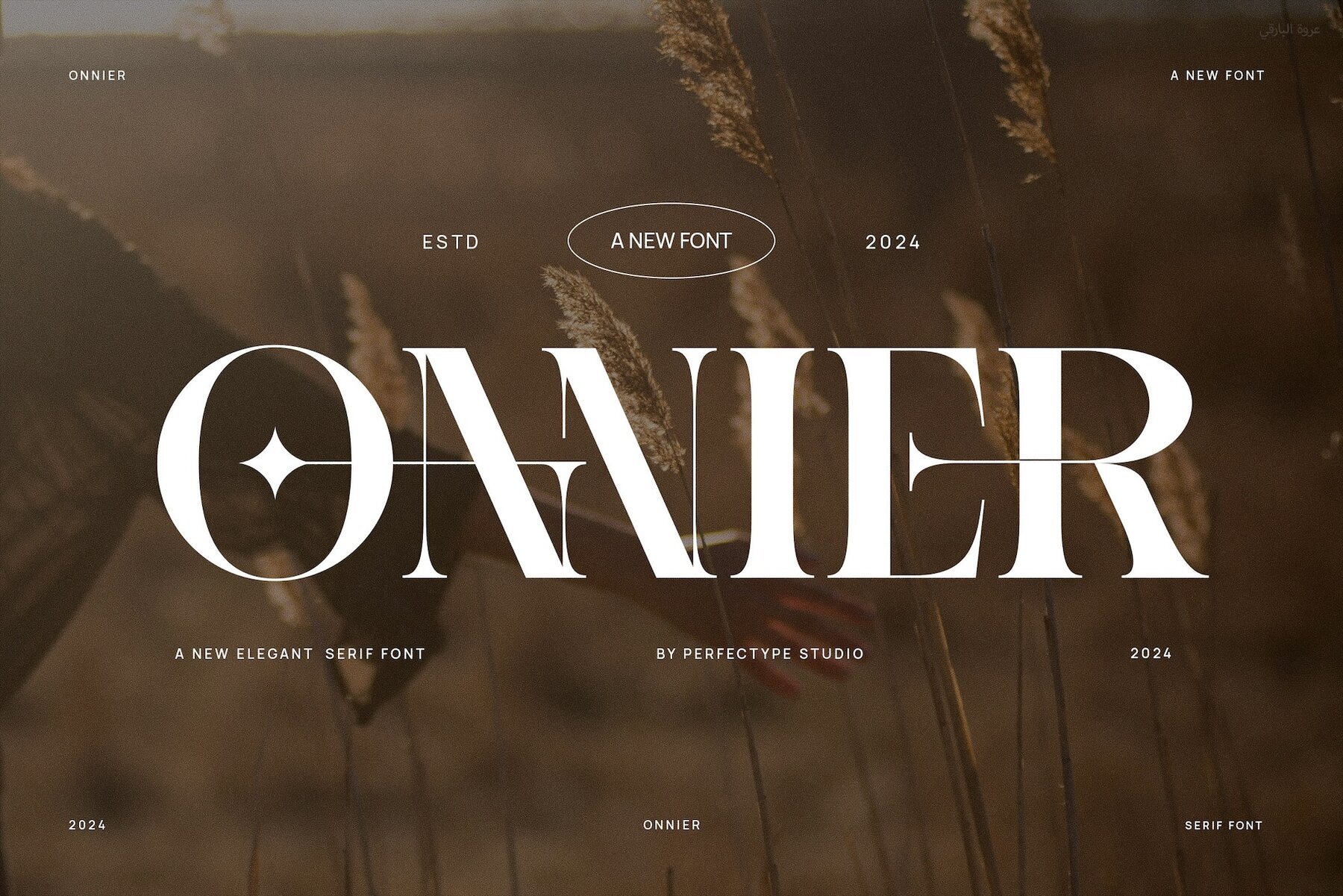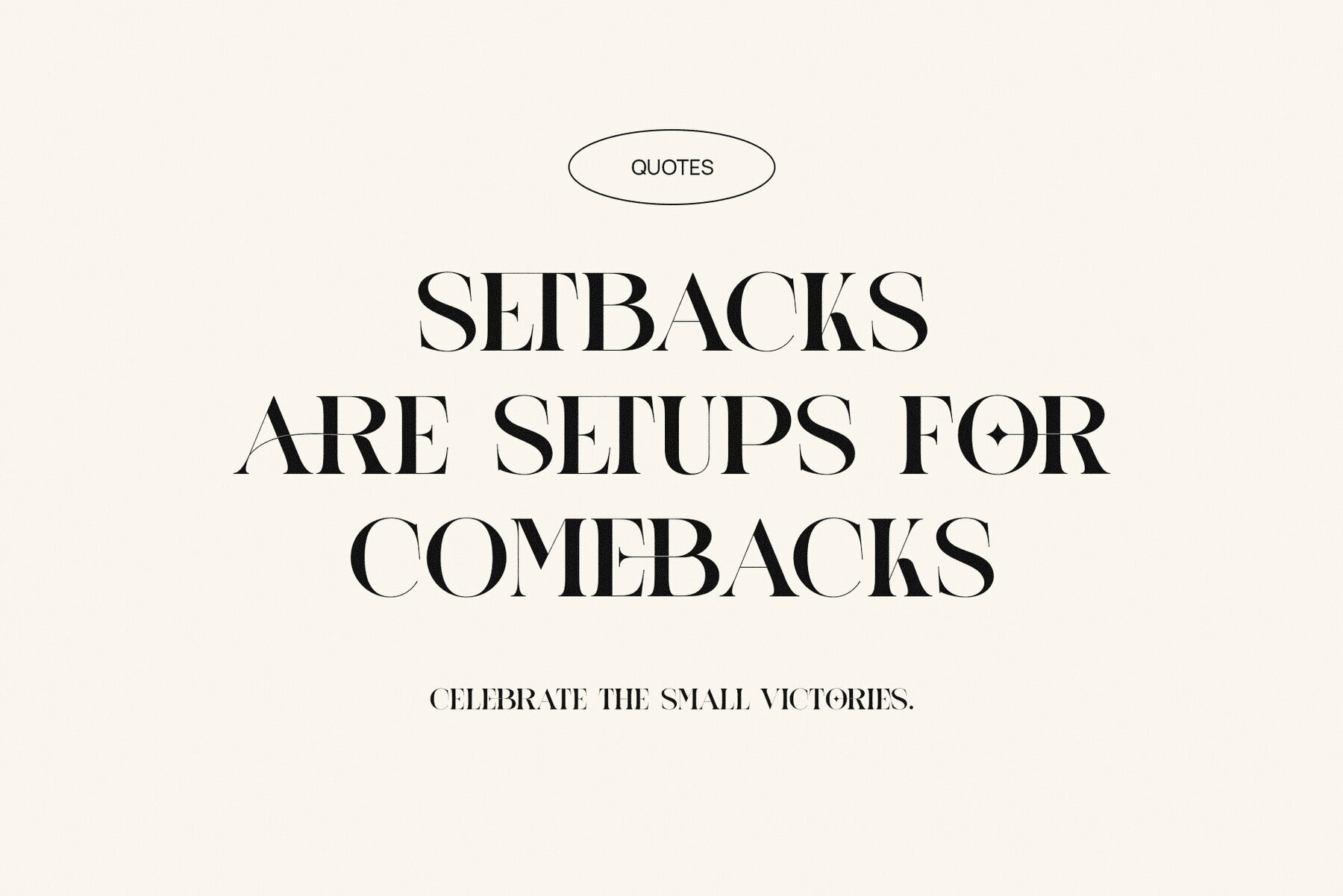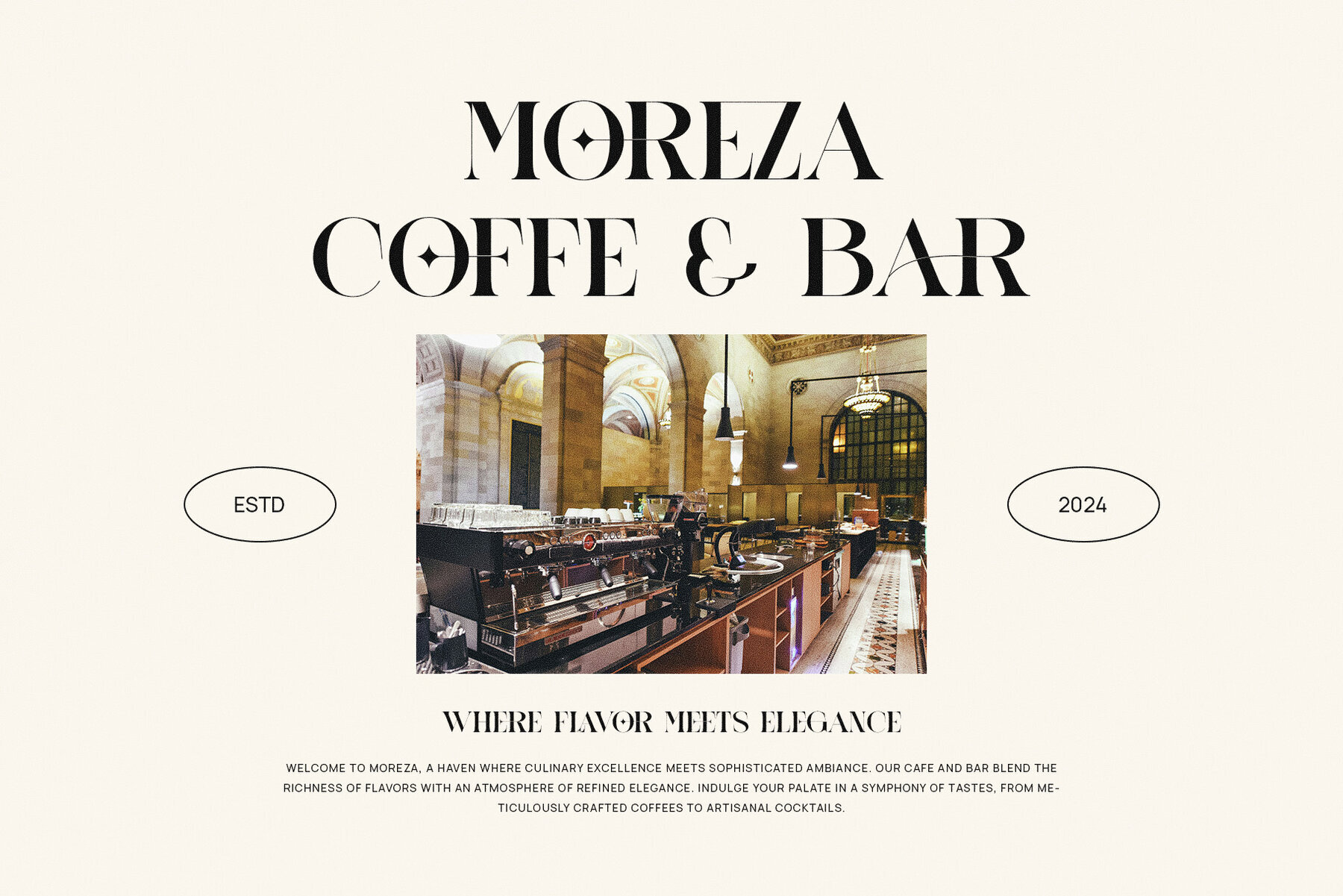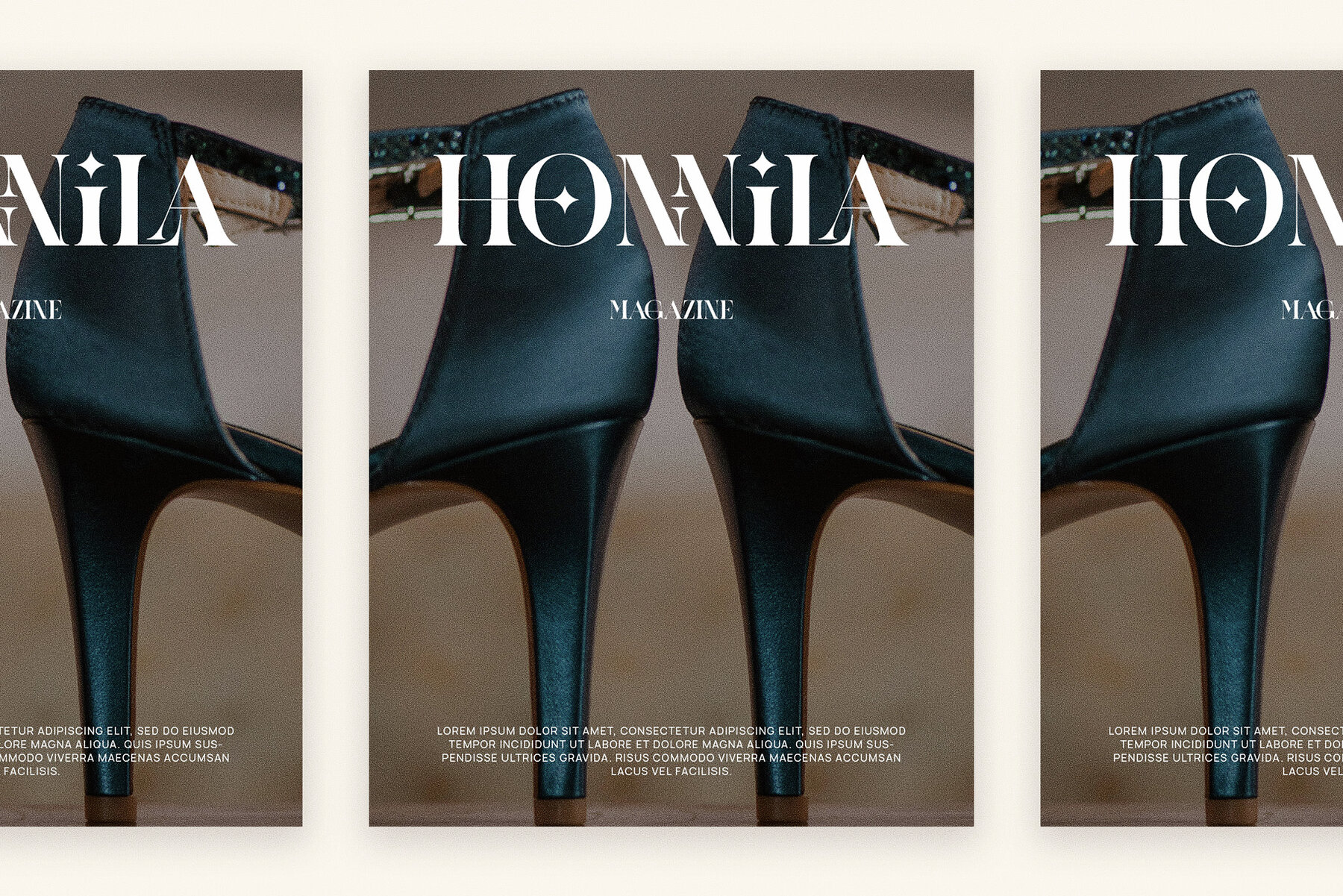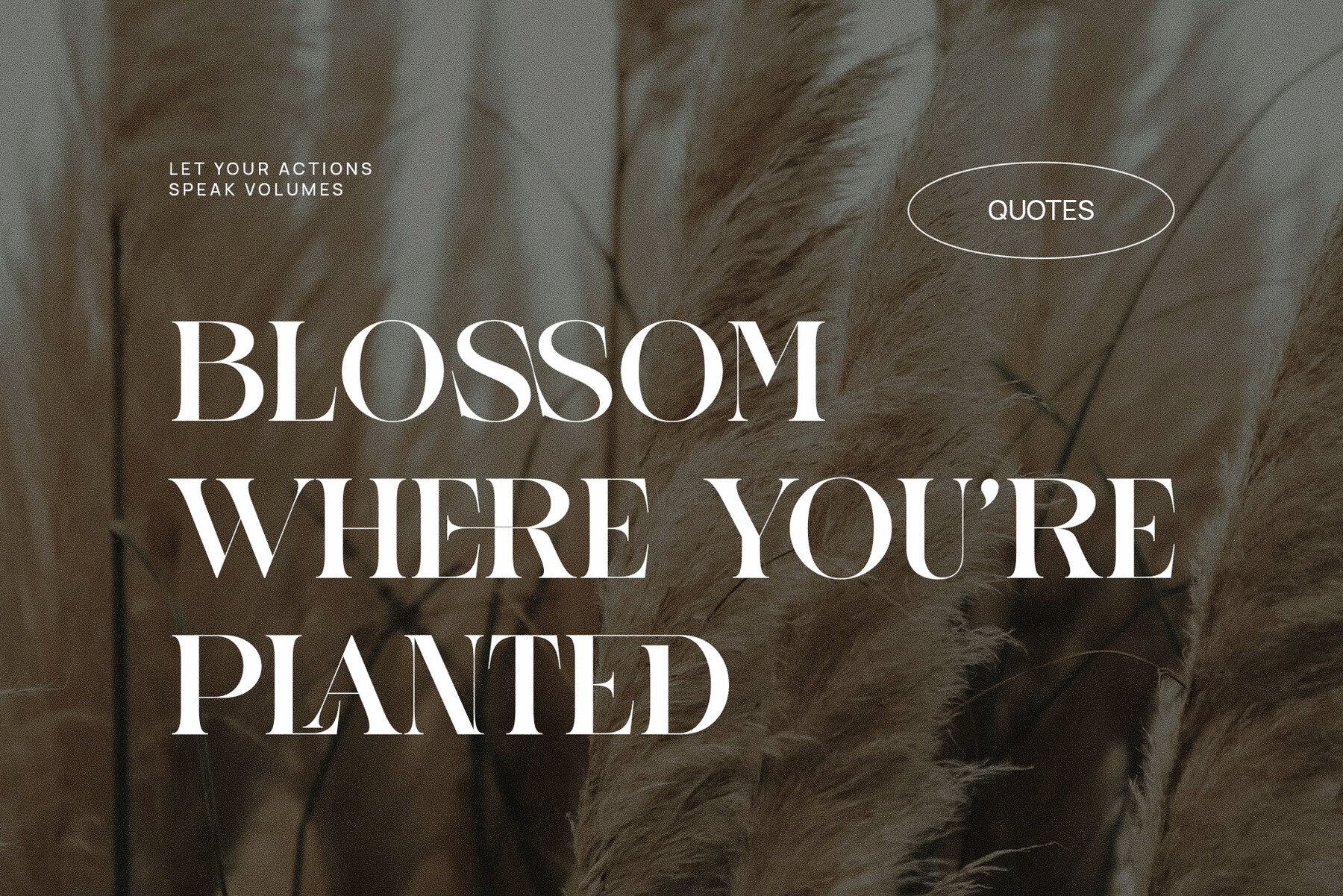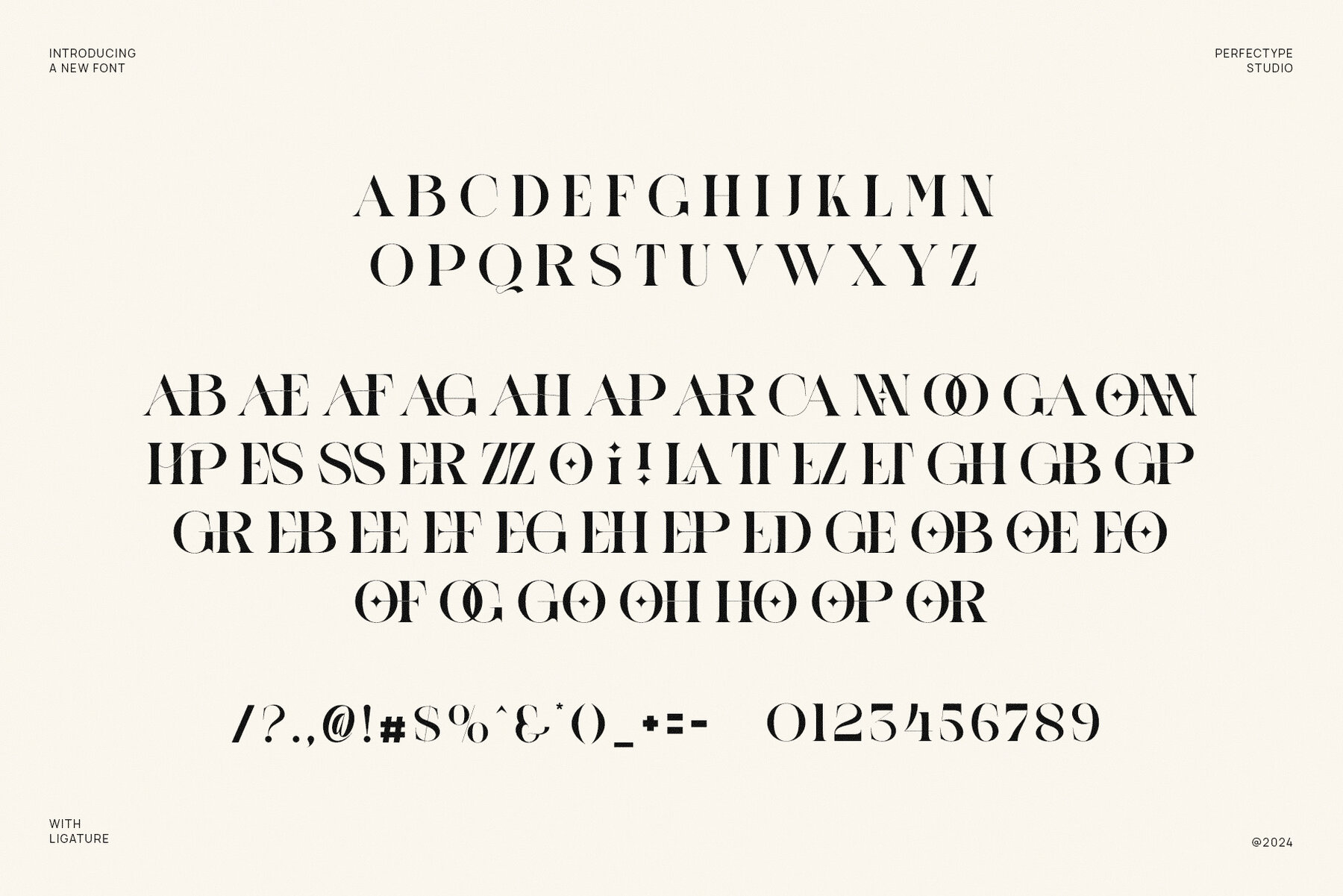
Onnier Elegant Serif Font is a refined and stylish typeface that beautifully blends modern design with timeless elegance. Its carefully crafted serifs and unique letterforms give it a distinctive and luxurious appeal. Onnier’s graceful curves, paired with its exquisite ligatures and alternate features, allow for a high level of customization, making it the perfect choice for designers looking to create sophisticated, personalized typography. This versatile font shines across a wide range of applications, including logos, branding, and premium product designs. Its elegant structure ensures it stands out in both print and digital media, making it ideal for website designs, magazine layouts, and captivating advertisements. Whether you’re designing a high-end logo, an upscale product label, or an elegant website, Onnier’s polished and refined appearance adds a touch of class to every project. Onnier is especially well-suited for industries that require an air of luxury and attention to detail, such as fashion, boutique brands, food, and lifestyle products. Its modern yet timeless appeal ensures that it works seamlessly for projects where elegance and refinement are key. With its unique design, beautiful ligatures, and alternate features, Onnier Elegant Serif Font is an essential tool for designers looking to craft memorable and impactful designs. Whether used for branding, editorial projects, or marketing materials, Onnier brings a sophisticated, upscale aesthetic that leaves a lasting impression and elevates your creative work to the next level.